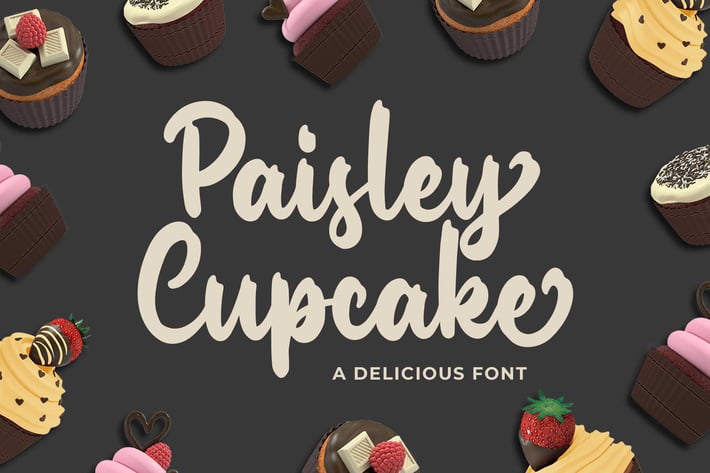
Paisley Cupkace a Delicious Font
Introducing of our new product the name is Paisley Cupkace a Delicious Font. Paisley Cupkace inspired by food them this font is a fun theme very good for display, food, restaurant, logotype and etc